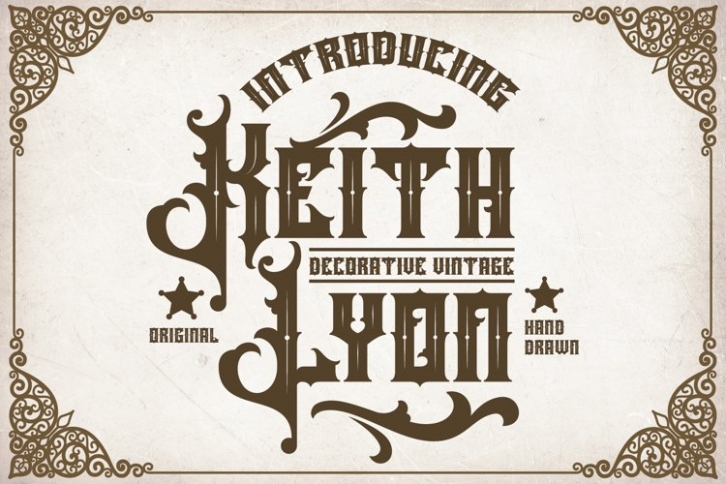
Keith Lyon is a beautiful font that was designed by plusstore. It's a great choice for designers and creatives who need such a font. It was released on April 29, 2022 and the file size is 7.62 MB. Keith Lyon may give a more youthful, expressive and casual look to your project. It is a very beautiful, refined, elegant, and high-quality font.